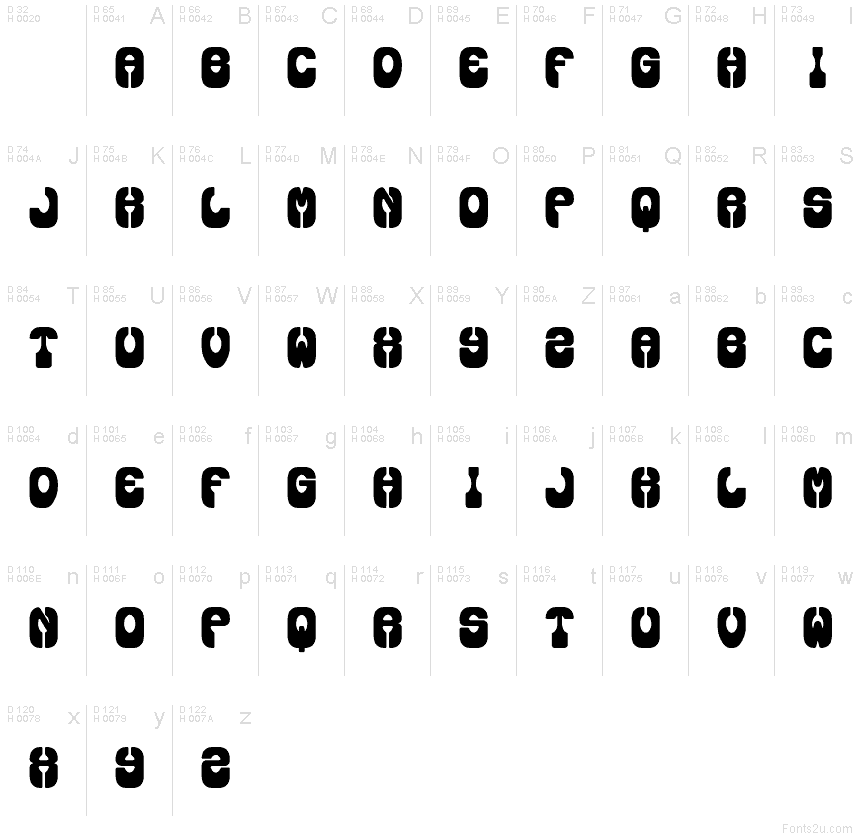
Honey Bunny Book Regular
Honey Bunny Book font by Vladimir Nikolic is a free retro display typeface with a bold, squishy presence that looks like it’s been carved out of a solid block of ink. Each letter is tall and rounded, with playful cut-ins that create a stencil-like rhythm without ever feeling cold or mechanical. The Honey Bunny family here feels chunky yet soft, like 70s bubble lettering sharpened just enough for modern layouts.
Using Honey Bunny Book, this free font shines on candy packaging, kids’ book covers, posters, party invitations, social media graphics, and quirky brand wordmarks. Its dense, upright forms hold together beautifully in big headings, so don’t be afraid to scale it up and let it breathe with generous spacing. For balance, pair Honey Bunny Book with a simple, light sans serif for body text to keep your layouts readable and charming.